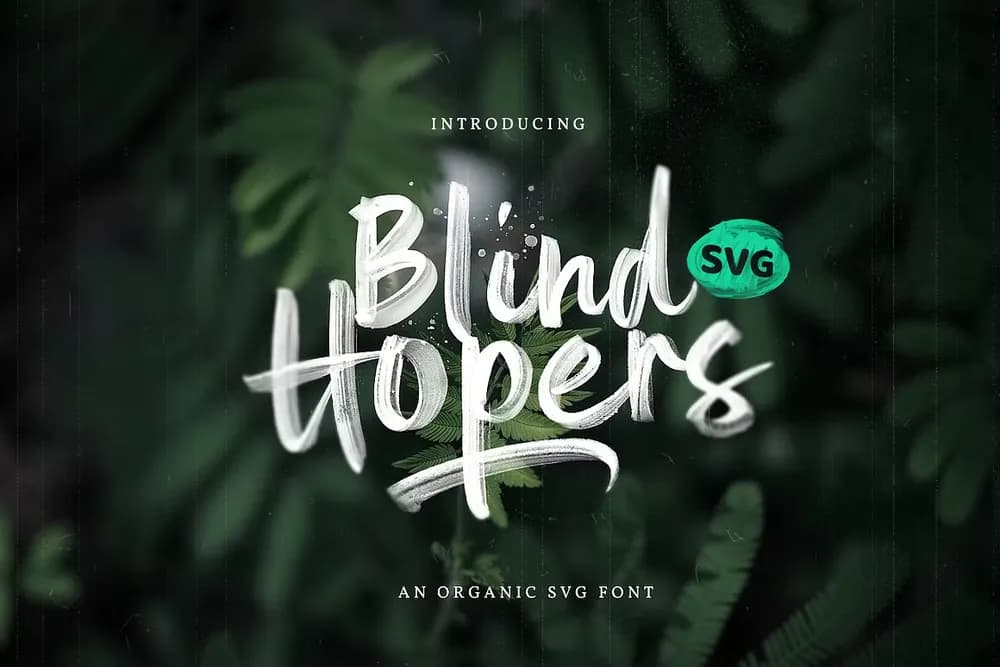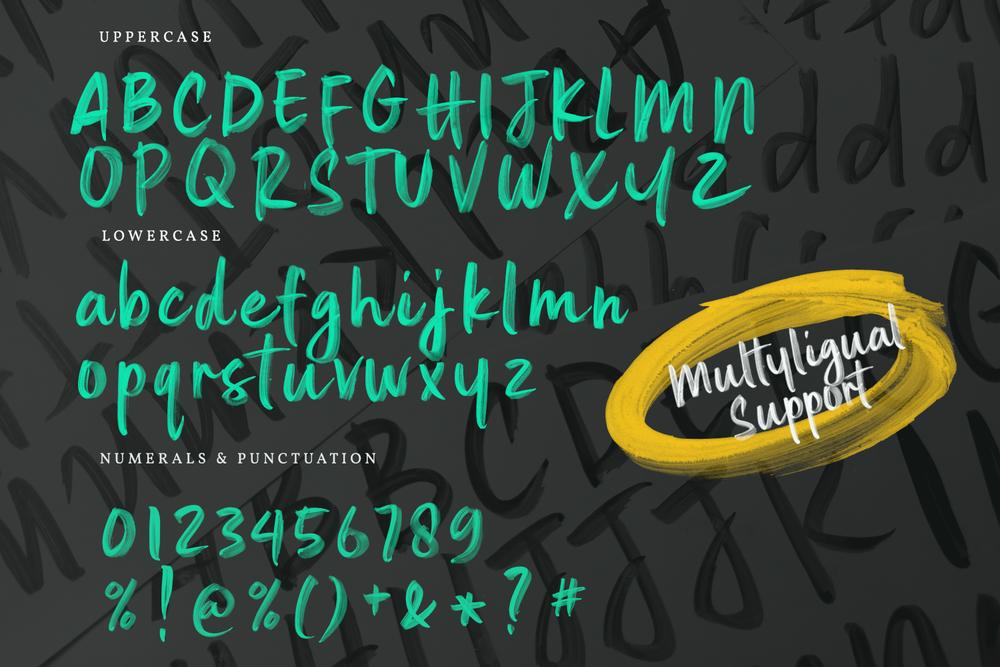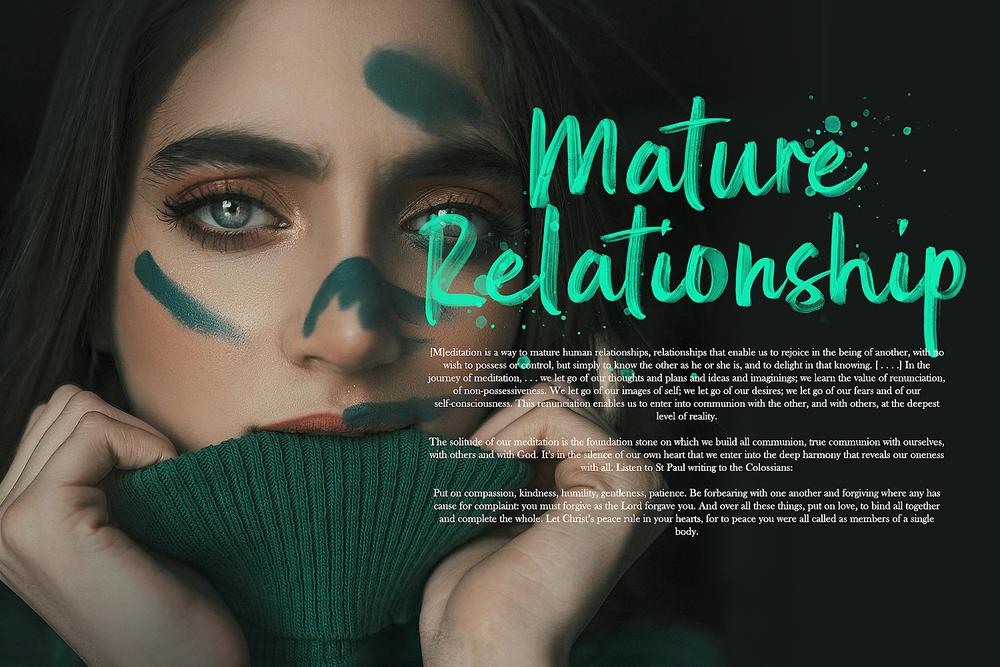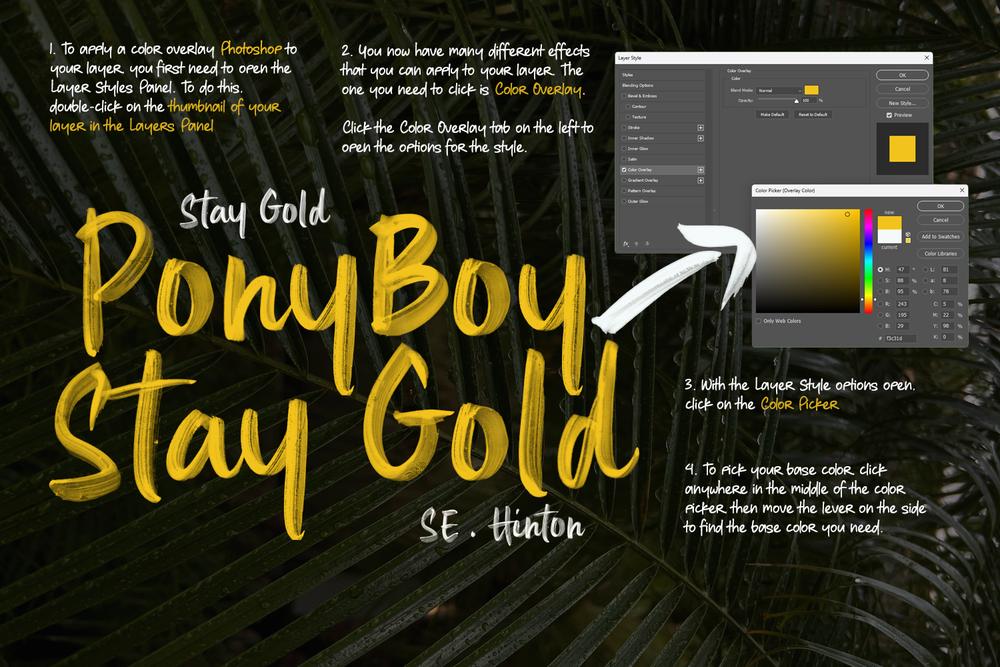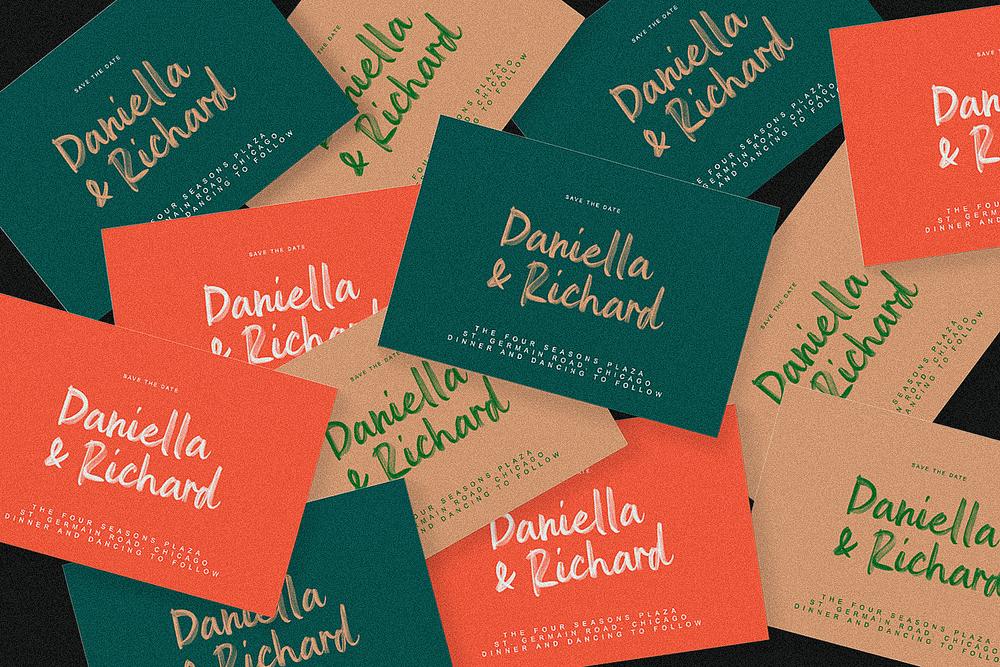
Blind Hopers These Opentype SVG fonts keep all of the transparency and texture of the original inked letters. Always Thankful will make your design projects burst with character and charm ——————————————————————————————————————— Requirements: You need to be using Photoshop CC 2017.1.1 (or later) or Illustrator CC 2018 (or later) for the Opentype SVG fonts. Don’t have the latest Adobe programs? You can still use the vector versions of the font, which are compatible with practically any program that accepts custom fonts.